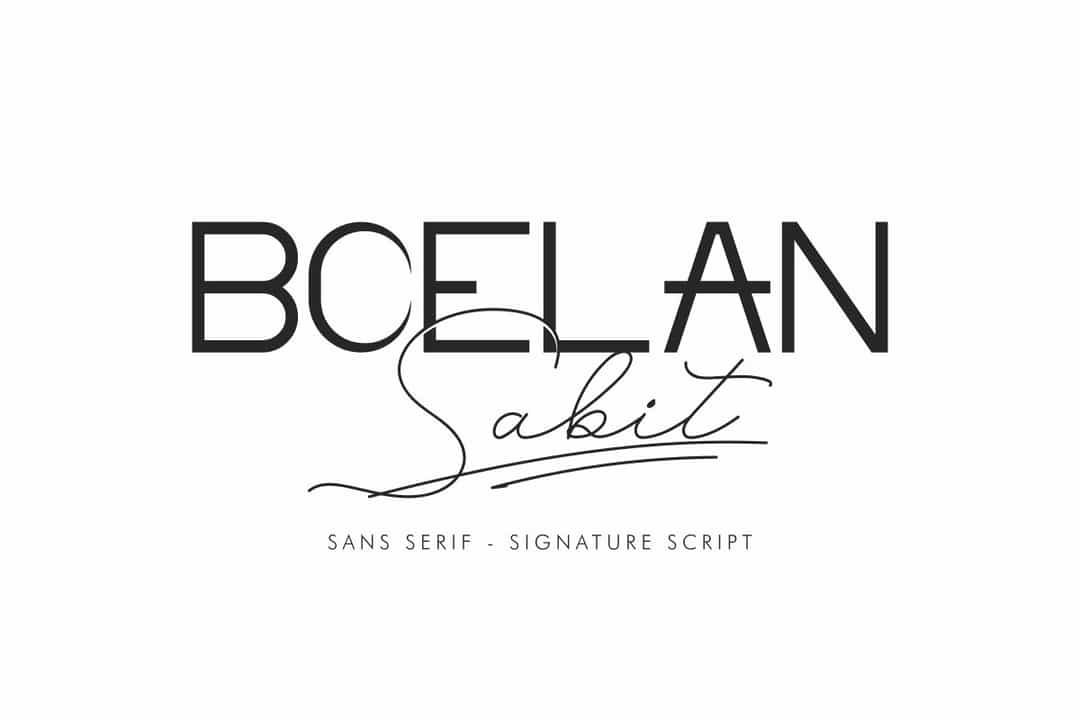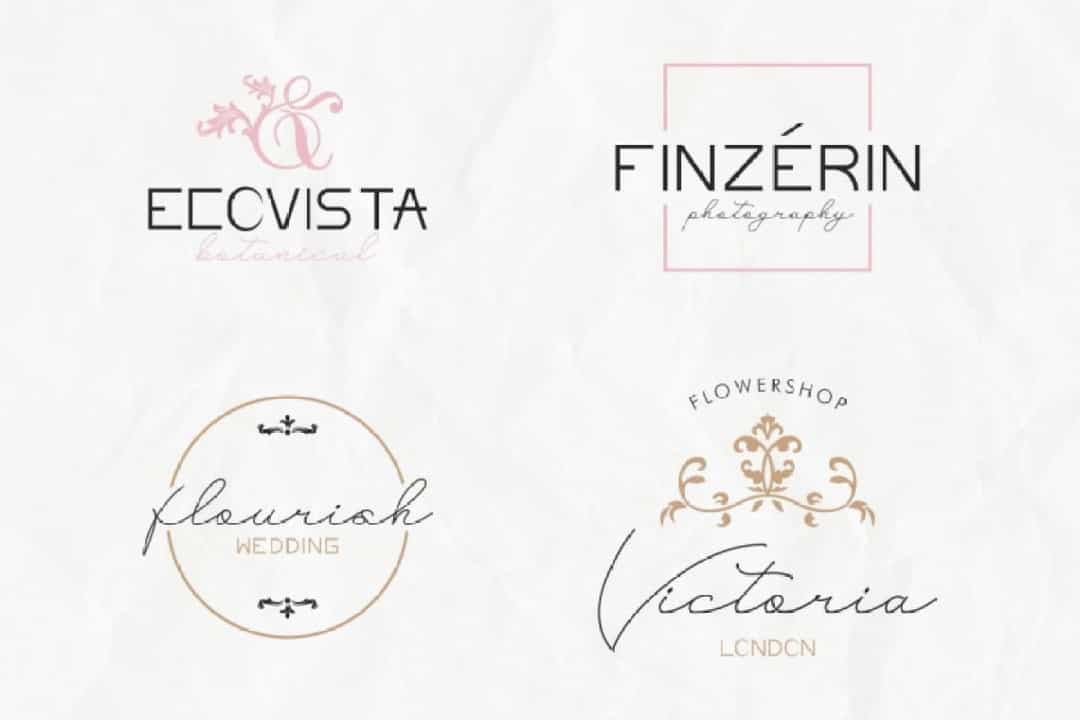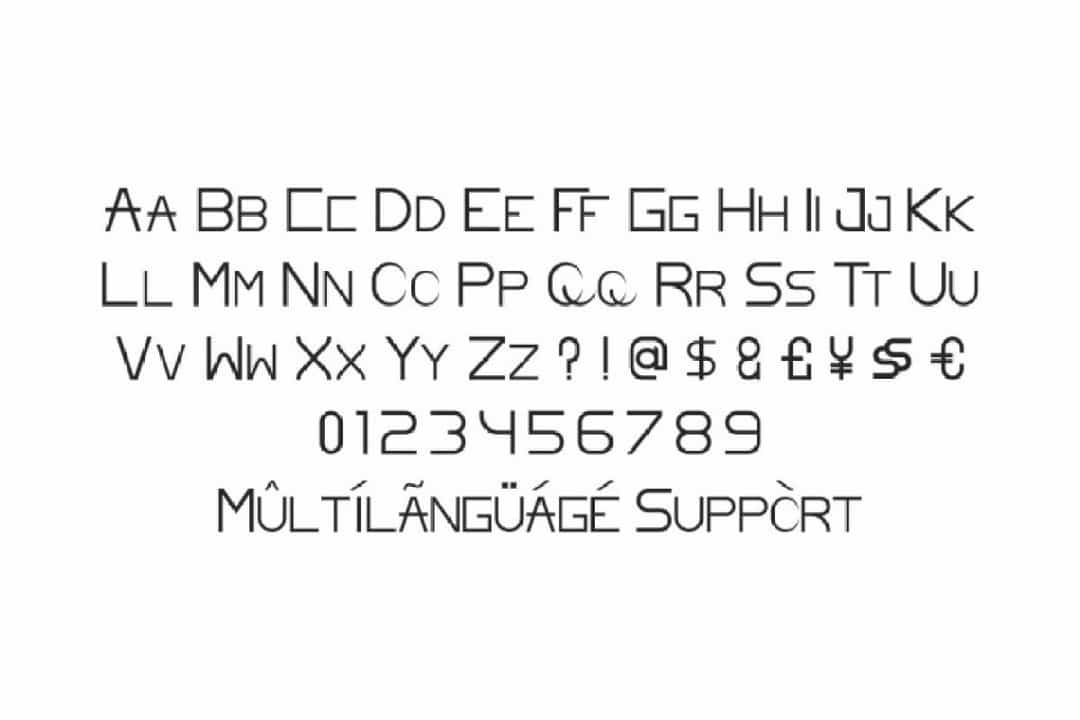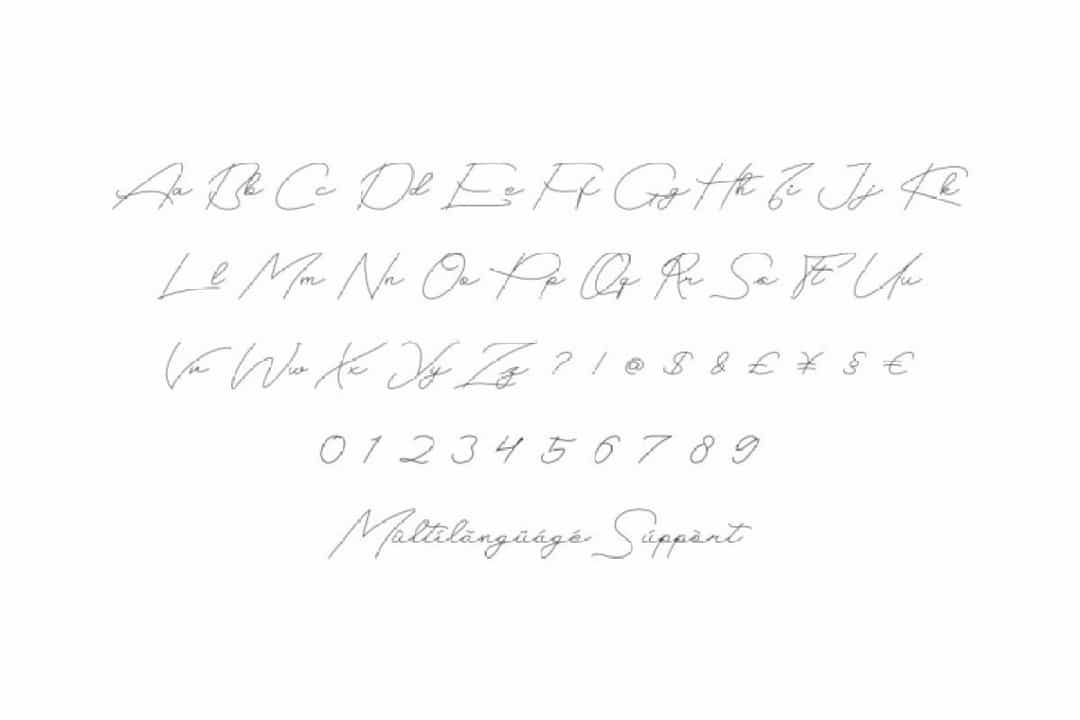
Discover Boelan Sabit Font, part of the Sans Serif Handwritten Script Basic Personal collection—a versatile and unique font perfect for adding a personal touch to your projects. Download it for free and enjoy crafting designs with style, from invitations to social media posts. This font is available exclusively for personal use, giving you the freedom to create without limits. Unlock your creativity with Boelan Sabit Font today!
Boelan Sabit Font Duo is a Sans Serif and Signature script typeface that will be perfect for any project that includes extended license usage, including logo and branding, stationery, business cards, and signage, flyer and brochure design. Boelan Sabit comes with two types of fonts; Sans Serif Display and Signature script.